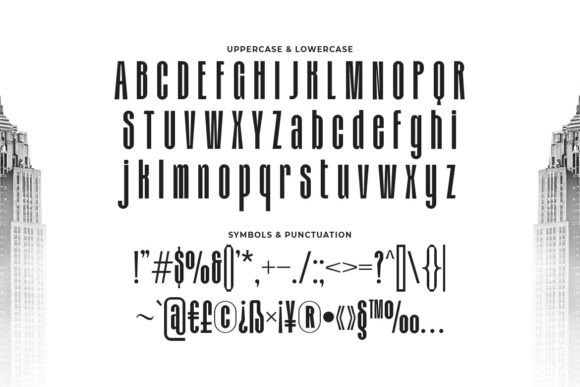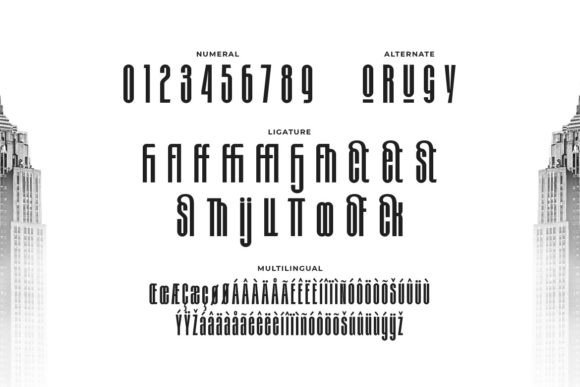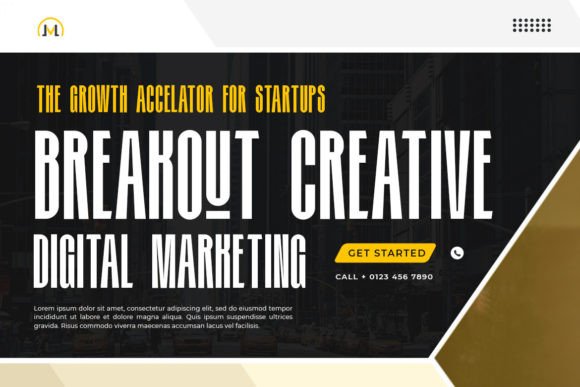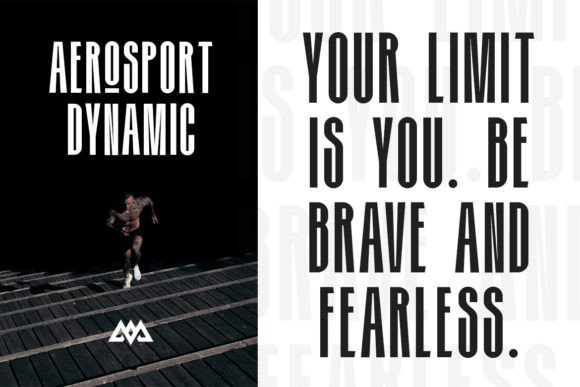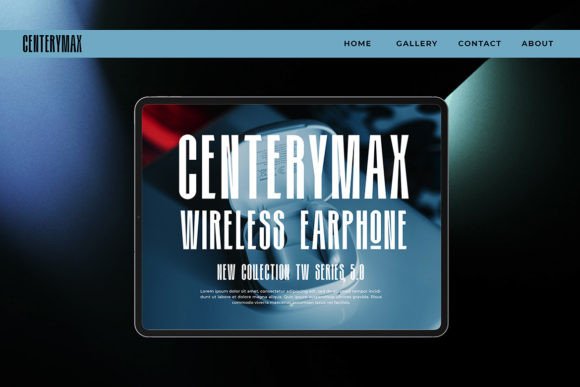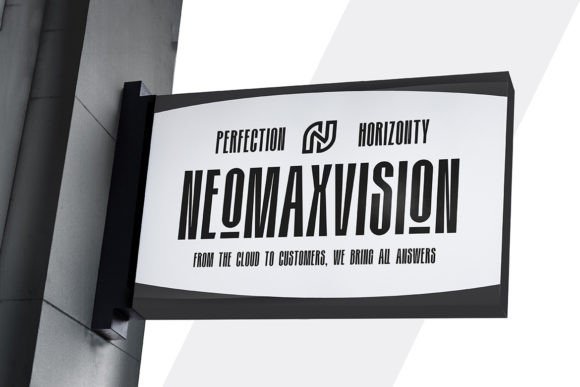
Introducing Gunbite Font: The Ultimate Choice for Stylish and Condensed Designs
Are you on the hunt for a font that exudes luxury, sophistication, and style? Look no further than Gunbite Font, a stunning condensed font perfect for a wide range of projects. From luxury logos and branding to editorial designs, magazines, and more, Gunbite Font is the ultimate choice for designers and crafters seeking to elevate their work.
What Makes Gunbite Font Stand Out?
Gunbite Font boasts a unique and stylish condensed design that sets it apart from other fonts. Its sleek lines, elegant curves, and precise craftsmanship make it an excellent choice for projects that demand a touch of sophistication. Whether you’re working on a luxury brand, a fashion promotional campaign, or an art gallery branding project, Gunbite Font is sure to impress.
Gunbite Font’s versatility is one of its standout features. This font is perfect for a wide range of projects, including:
- Luxury logos and branding
- Classy editorial designs and magazines
- Cosmetic brands and fashion promotional campaigns
- Art gallery branding and museums
- Boutique branding and stationery designs
- Blog designs and modern advertising designs
- Card invitations and art quotes
- Home decor and book/cover titles
- Special events and more
Why Choose Gunbite Font?
So, why should you choose Gunbite Font for your next project? Here are just a few compelling reasons:
- Unique and stylish design: Gunbite Font boasts a distinctive and stylish design that will set your project apart from the rest.
- Condensed and elegant: This font’s condensed design makes it perfect for projects where space is limited, while its elegant curves and lines add a touch of sophistication.
- Highly versatile: Gunbite Font is suitable for a wide range of projects, from luxury branding to editorial designs and more.
- Easy to read and use: Despite its condensed design, Gunbite Font is easy to read and use, making it perfect for body text and headlines.
Tips for Using Gunbite Font
To get the most out of Gunbite Font, here are a few tips to keep in mind:
- Use it as a headline font: Gunbite Font’s stylish design makes it perfect for headlines and titles.
- Pair it with a sans-serif font: For body text, consider pairing Gunbite Font with a clean sans-serif font to create a striking contrast.
- Experiment with different colors: Gunbite Font looks stunning in a range of colors, from metallic tones to bold brights.
In conclusion, Gunbite Font is a stylish and condensed font that’s perfect for designers and crafters seeking to elevate their work. With its unique design, versatility, and ease of use, Gunbite Font is an excellent choice for a wide range of projects. Whether you’re working on a luxury brand, editorial design, or special event, Gunbite Font is sure to impress.